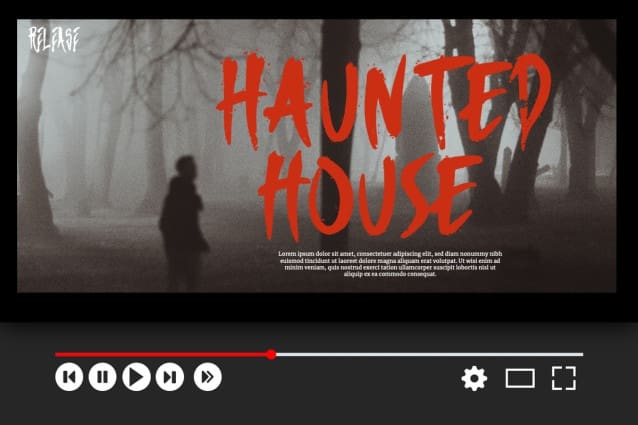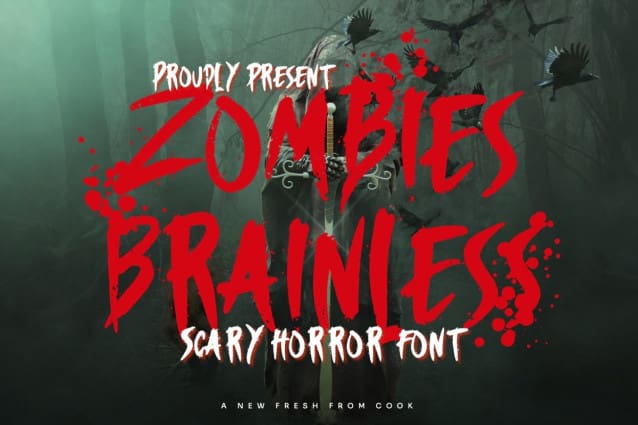
Zombies Brainless Font
Zombies Brainless Font is a scary horror display font. This font is very suitable for horror movie titles, Halloween, banners, posters, stickers, branding, book titles, and more. This font is equipped with uppercase, lowercase, numerals, punctuation, and multilingual support.